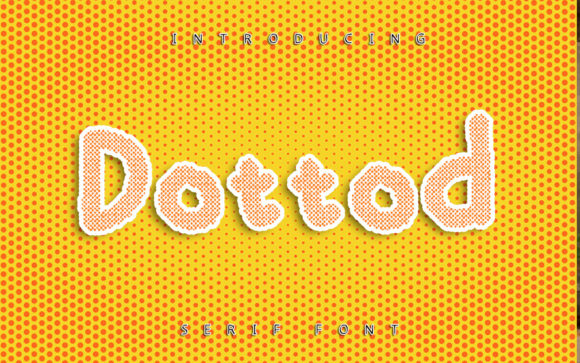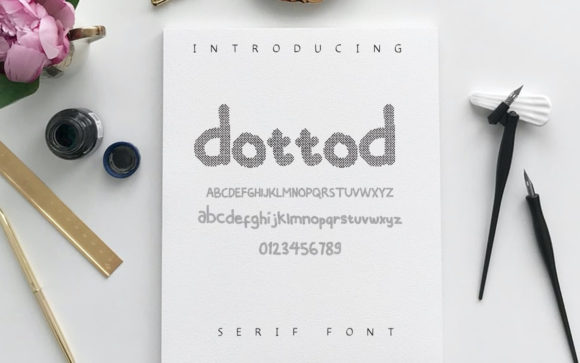
Dottod Font: The Playful and Versatile Display Font
Are you looking for a font that can add a touch of playfulness and uniqueness to your designs? Look no further than Dottod Font! This charming display font, made entirely out of dots, is perfect for a variety of creative projects, from cartoon-related designs to children’s games and more.
What is Dottod Font?
Dottod Font is a uniquely designed display font that features a distinctive dot-based style. Each letter and character is carefully crafted using a series of dots, creating a visually striking and whimsical effect. The font’s playful and childlike appearance makes it an excellent choice for designs that require a lighthearted and fun touch.
Key Features of Dottod Font
- Unique Dot-Based Design: Dottod Font’s distinctive dot-based design sets it apart from other fonts. The font’s letters and characters are made up of a series of dots, creating a visually appealing and playful effect.
- Versatile and Flexible: Dottod Font is highly versatile and can be used for a wide range of creative projects, from cartoon-related designs to children’s games, posters, and more.
- Easy to Read: Despite its unconventional design, Dottod Font is surprisingly easy to read, making it an excellent choice for headlines, titles, and other display text.
- Highly Customizable: Dottod Font can be easily customized to suit your design needs. You can adjust the font size, color, and style to create a unique look that complements your project.
Use Cases for Dottod Font
Dottod Font is an incredibly versatile font that can be used for a wide range of creative projects. Here are some use cases to get you started:
- Cartoon-Related Designs: Dottod Font is perfect for cartoon-related designs, such as character logos, titles, and captions.
- Children’s Games and Education: The font’s playful and childlike appearance makes it an excellent choice for children’s games, educational materials, and activity sheets.
- Posters and Flyers: Dottod Font can add a touch of whimsy and fun to posters and flyers for events, promotions, and products.
- Branding and Packaging: The font’s unique design makes it an excellent choice for branding and packaging projects that require a playful and eye-catching look.
Tips for Using Dottod Font
Here are some tips for getting the most out of Dottod Font:
- Experiment with Font Sizes: Dottod Font looks great in a variety of font sizes. Experiment with different sizes to find the perfect fit for your project.
- Play with Color: The font’s dot-based design makes it easy to create a bold and colorful look. Experiment with different colors to find the perfect combination for your project.
- Combine with Other Fonts: Dottod Font pairs well with other fonts. Experiment with combining it with other fonts to create a unique and visually appealing look.
Dottod Font is a uniquely designed display font that offers a playful and versatile solution for a wide range of creative projects. Its distinctive dot-based design, ease of use, and high customizability make it an excellent choice for designers and crafters looking to add a touch of whimsy and fun to their designs. Whether you’re working on a cartoon-related project, children’s game, or poster, Dottod Font is sure to be an amazing choice.